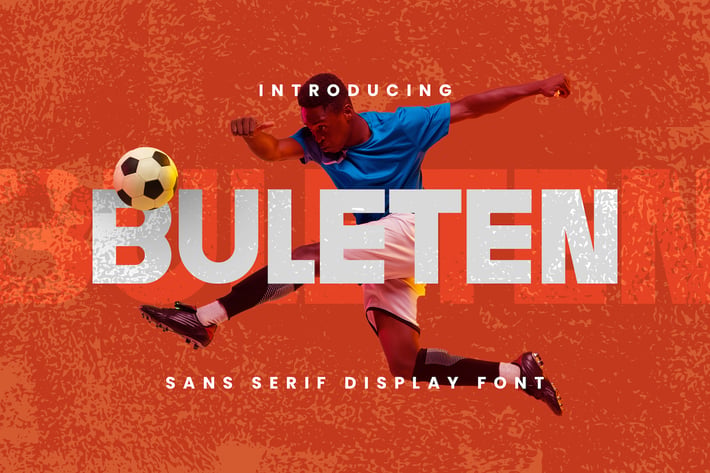
Buleten - Modern Sans Sports Font
Buleten modern sans sports is a great looking bold sans serif font with a modern look and is strong and bold, mirroring the brings you the kind of cheerful and sporty vibes which spreads the playful energy for the game.
Its bold typography captures the to have sharp-corners to express the strength. This font will be suitable associated to any kind of sport product such as poster, jersey design, sport-slogan, any writing which needs a strong-bold vibe, and any type of advertising purpose.